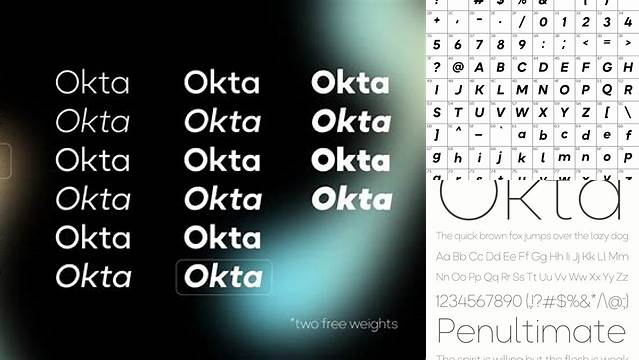
Are you looking to enhance your design projects with the Okta bold font? Look no further! This comprehensive guide will walk you through everything you need to know about Okta's distinct typography, where to find free downloads, and how to effectively use it in your various projects. Whether you're a seasoned designer or just starting, understanding the nuances of font usage can significantly elevate your work. Let's dive into the world of Okta bold font and unlock its potential for your creative endeavors.
Understanding the Okta Bold Font
Okta's brand identity is deeply rooted in its visual elements, with typography playing a crucial role. The Okta bold font isn't just a typeface; it's a representation of the company's values and mission. It conveys reliability, innovation, and a user-centric approach. When you incorporate the Okta bold font into your designs, you're not just adding text; you're aligning with a brand that stands for security and seamless user experiences. Understanding the philosophy behind the font helps you use it more effectively, ensuring that your designs resonate with the right message. The font's clean lines and strong presence make it versatile for various applications, from website headers to marketing materials. By appreciating its design principles, you can leverage the Okta bold font to create impactful and memorable visuals that capture the essence of Okta's brand.
Moreover, the Okta bold font is designed to be highly legible across different mediums and screen sizes. This is particularly important in today's digital landscape, where content is consumed on a wide range of devices. The font's clarity ensures that your message remains clear and accessible, regardless of whether it's viewed on a large desktop monitor or a small smartphone screen. This attention to detail reflects Okta's commitment to user experience, making it a valuable asset for any designer. Furthermore, the Okta bold font is often used in conjunction with other fonts to create a balanced and harmonious visual hierarchy. Experimenting with different font pairings can help you achieve a unique and professional look that enhances your overall design. By understanding the technical aspects and design considerations of the Okta bold font, you can make informed decisions about its usage and maximize its impact on your projects. So, let's explore where you can find this valuable resource for free and how to make the most of it.
To further illustrate its significance, consider how the Okta bold font contributes to brand recognition. Consistency in typography helps create a cohesive brand identity, making it easier for audiences to identify and remember Okta. When you use the Okta bold font in your designs, you're reinforcing this brand recognition and associating your work with Okta's reputation for quality and innovation. This is particularly beneficial for projects that involve Okta's products or services, as it creates a seamless and integrated experience for the user. Additionally, the Okta bold font's distinct characteristics set it apart from generic typefaces, adding a touch of uniqueness and professionalism to your designs. By carefully considering the font's role in brand communication, you can use it strategically to enhance your message and create a lasting impression. The Okta bold font is more than just a visual element; it's a powerful tool for building brand identity and fostering trust with your audience.
How to Use Okta Bold Font Effectively
Once you've successfully downloaded the Okta bold font, it's time to put it to use! However, simply having the font installed on your system isn't enough. To truly leverage its potential, you need to understand how to use it effectively in your designs. Start by considering the overall aesthetic you're trying to achieve. The Okta bold font is best suited for headlines, titles, and other prominent text elements that need to grab the reader's attention. Its strong and confident appearance makes it ideal for conveying important messages and creating a sense of authority. However, it's important to avoid overusing the font, as too much bold text can be overwhelming and detract from the overall design. Instead, use it sparingly and strategically to highlight key information and create a visual hierarchy. By balancing the Okta bold font with other fonts and design elements, you can create a cohesive and impactful visual experience.
When using the Okta bold font, pay close attention to its kerning and leading. Kerning refers to the spacing between individual letters, while leading refers to the spacing between lines of text. Adjusting these settings can significantly improve the readability and visual appeal of your text. In general, the Okta bold font benefits from slightly tighter kerning and generous leading. This helps create a more balanced and harmonious appearance, especially in longer blocks of text. Experiment with different kerning and leading values to find the settings that work best for your specific design. You can also use tracking, which adjusts the overall spacing between all letters in a word or phrase, to fine-tune the font's appearance. By mastering these typographic techniques, you can ensure that the Okta bold font looks its best in your designs.
Furthermore, consider the context in which you're using the Okta bold font. Is it for a website, a print brochure, or a social media post? The optimal usage of the font may vary depending on the medium. For example, on a website, you might use the Okta bold font for headings and subheadings, while using a more readable font for body text. In a print brochure, you might use the Okta bold font for pull quotes and callouts to draw attention to key information. On social media, you might use the Okta bold font in your profile bio or in eye-catching graphics. By tailoring your usage of the font to the specific medium, you can maximize its impact and ensure that your message resonates with your target audience. Remember to always prioritize readability and visual appeal when using the Okta bold font, and don't be afraid to experiment with different approaches to find what works best for your project.
The Okta bold font is a powerful tool for enhancing your design projects and aligning with Okta's brand identity. By understanding its design principles, finding legitimate sources for free downloads, and using it effectively, you can unlock its full potential and create impactful visuals. Remember to always exercise caution when downloading fonts from the internet and to respect the font's licensing terms. With a little bit of knowledge and effort, you can confidently incorporate the Okta bold font into your designs and elevate your work to the next level. Happy designing, folks!